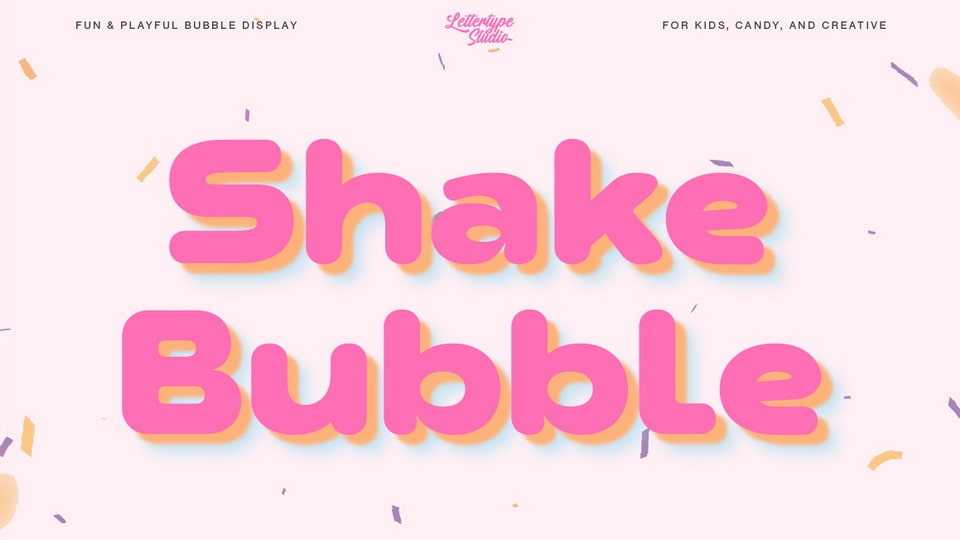
Download Shake Bubble font, a playful and bold bubble typeface that brings a burst of joy to any design with its thick, rounded shapes and bouncy personality.
Designer: Lettertype Studio